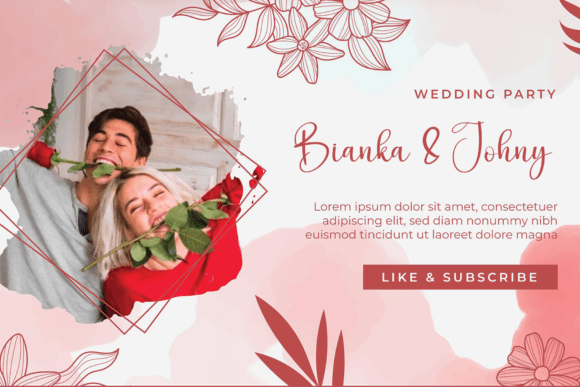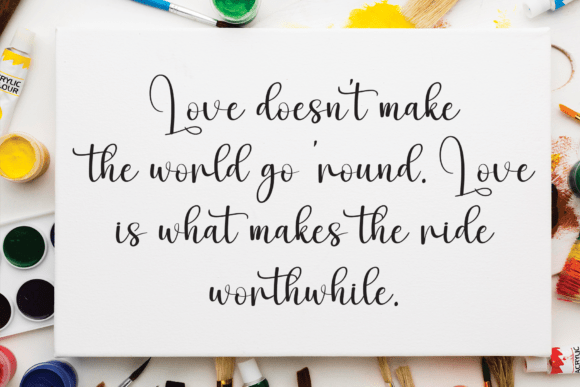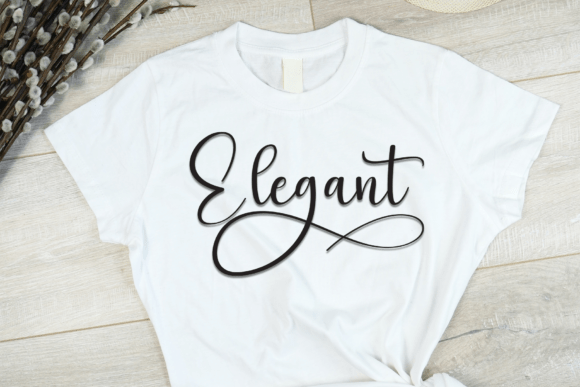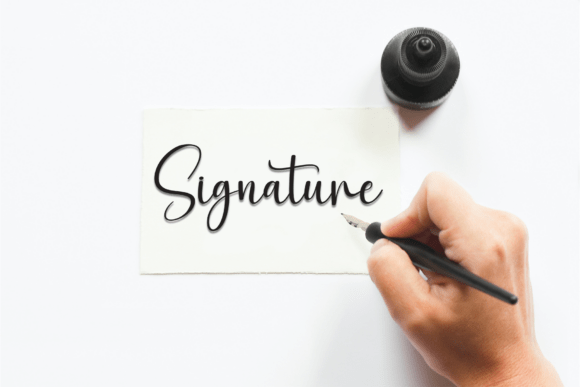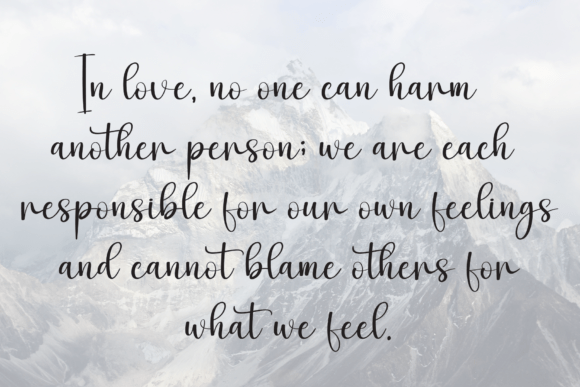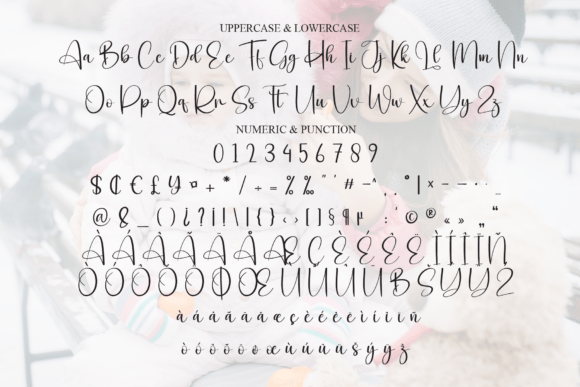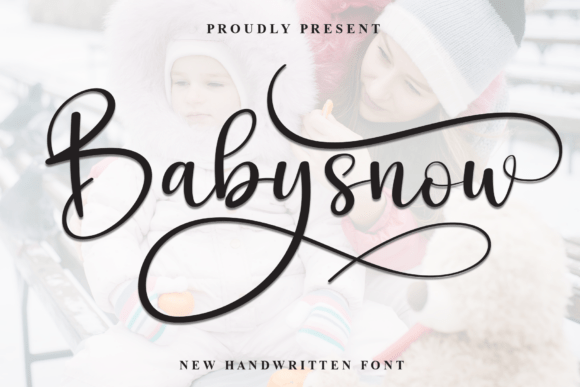
Babysnow Font: Elevate Your Design with Elegance and Charm
Are you looking for a font that exudes sophistication, elegance, and romance? Look no further than the Babysnow Font. This beautiful script font is perfect for designers and crafters who want to add a touch of luxury to their designs. With its smooth curves, flowing lines, and charming swashes, Babysnow Font is ideal for a variety of projects, from weddings and branding to social media and invitations.
The Characteristics of Babysnow Font
Babysnow Font is a script font that boasts a range of characteristics that make it stand out from other fonts. Its elegant, flowing lines and smooth curves give it a handwritten, romantic feel that’s perfect for designs that require a personal touch. The font features:
- Smooth curves: The font’s smooth curves give it a fluid, natural look that’s perfect for designs that require a sense of movement and flow.
- Graceful swashes: The font’s swashes add a touch of elegance and sophistication to any design, making it perfect for headings, titles, and other display text.
- Handwritten feel: The font’s handwritten feel gives it a personal, unique touch that’s perfect for designs that require a sense of warmth and personality.
Uses for Babysnow Font
Babysnow Font is a versatile font that can be used for a wide range of projects, including:
- Weddings: The font’s elegant, romantic feel makes it perfect for wedding invitations, wedding stationery, and other wedding-related designs.
- Branding: The font’s sophisticated, luxurious feel makes it perfect for branding projects that require a sense of high-end quality and elegance.
- Social media: The font’s playful, charming feel makes it perfect for social media graphics, quotes, and other social media-related designs.
- Invitations: The font’s elegant, refined feel makes it perfect for invitations, including birthday invitations, baby shower invitations, and other special occasion invitations.
Benefits of Using Babysnow Font
There are many benefits to using Babysnow Font in your designs. Some of the key benefits include:
- Elegance: The font’s elegant, sophisticated feel adds a touch of luxury to any design.
- Versatility: The font’s versatility makes it perfect for a wide range of projects, from weddings and branding to social media and invitations.
- Personal touch: The font’s handwritten feel gives it a personal, unique touch that’s perfect for designs that require a sense of warmth and personality.
- Easy to read: The font’s clear, legible design makes it easy to read, even at small sizes.
Tips for Using Babysnow Font
Here are a few tips for using Babysnow Font in your designs:
- Use it sparingly: Because of its elegant, sophisticated feel, it’s best to use Babysnow Font sparingly. Use it for headings, titles, and other display text, and pair it with a simpler font for body text.
- Experiment with swashes: The font’s swashes are a key feature, so don’t be afraid to experiment with them. Try using different swashes to add visual interest to your design.
- Pair it with other fonts: Babysnow Font pairs well with a range of other fonts, including serif and sans-serif fonts. Experiment with different pairings to find the one that works best for your design.
In conclusion, Babysnow Font is a beautiful, elegant script font that’s perfect for designers and crafters who want to add a touch of sophistication to their designs. With its smooth curves, flowing lines, and charming swashes, it’s ideal for a wide range of projects, from weddings and branding to social media and invitations. Whether you’re crafting a signature logo or heartfelt quote, Babysnow Font adds a personal and stylish flair that’s sure to impress.